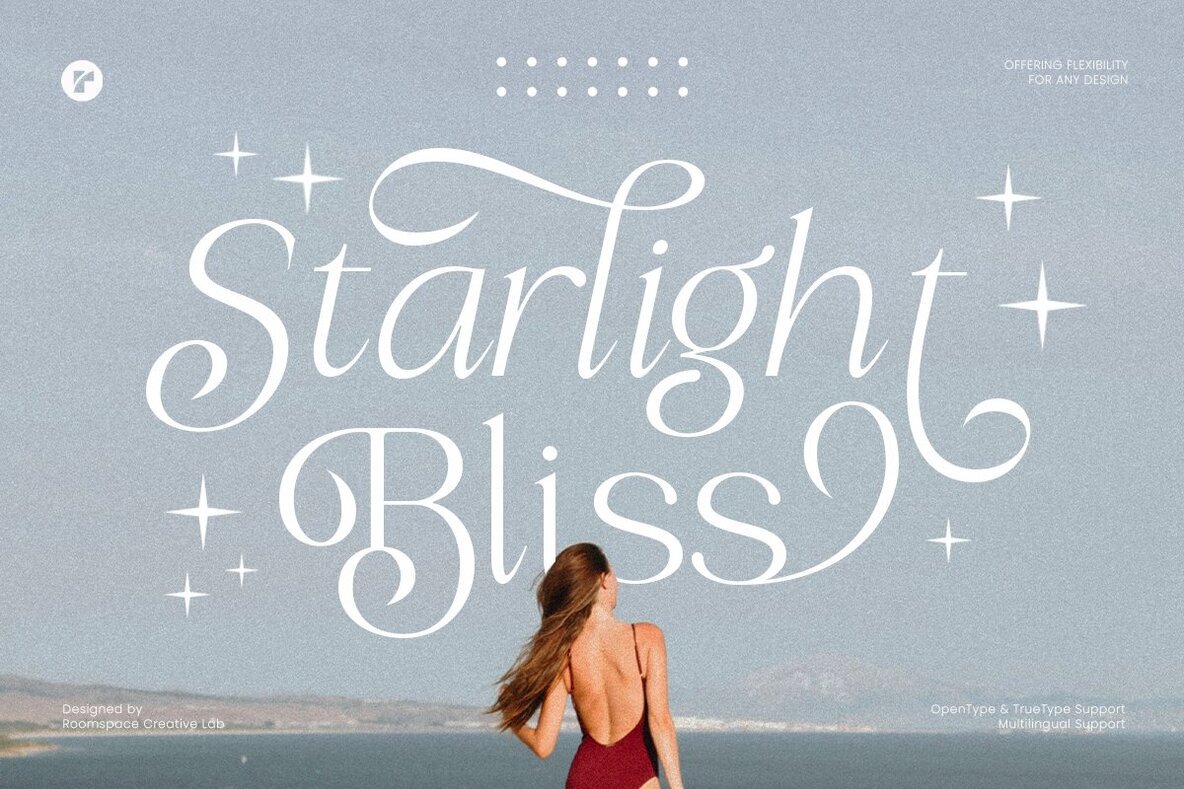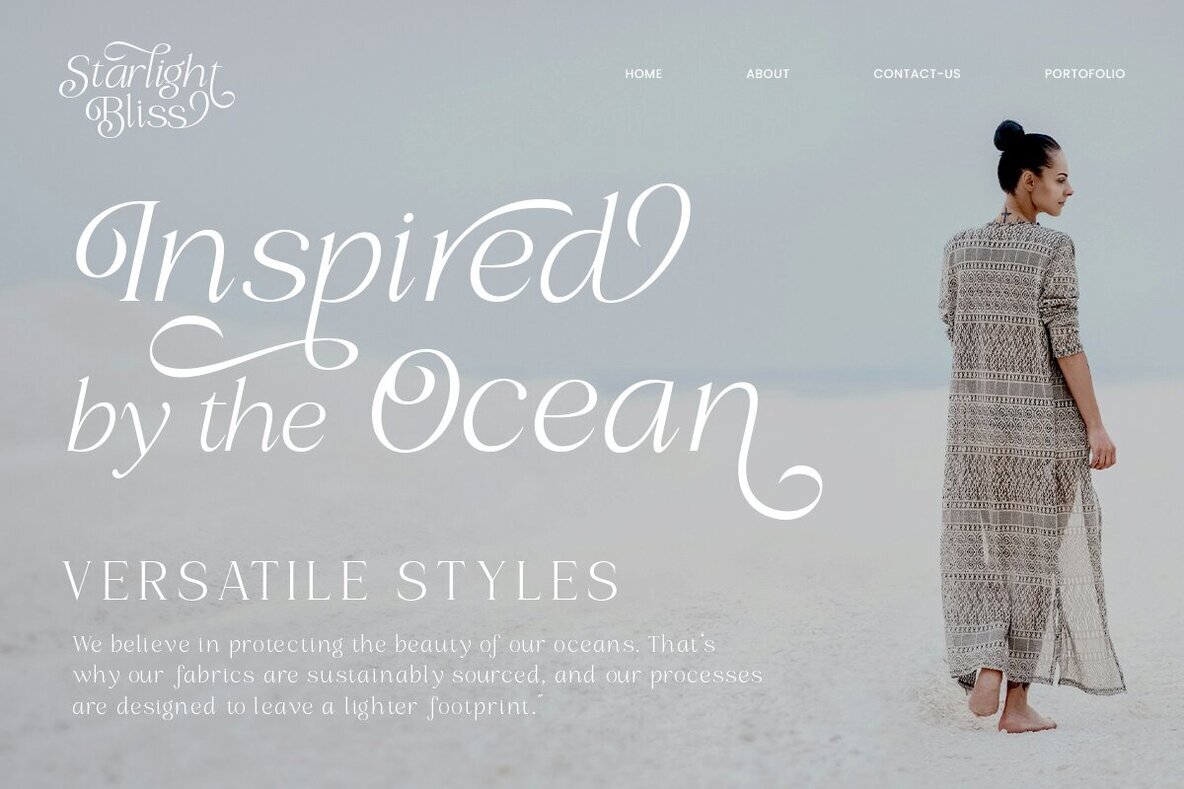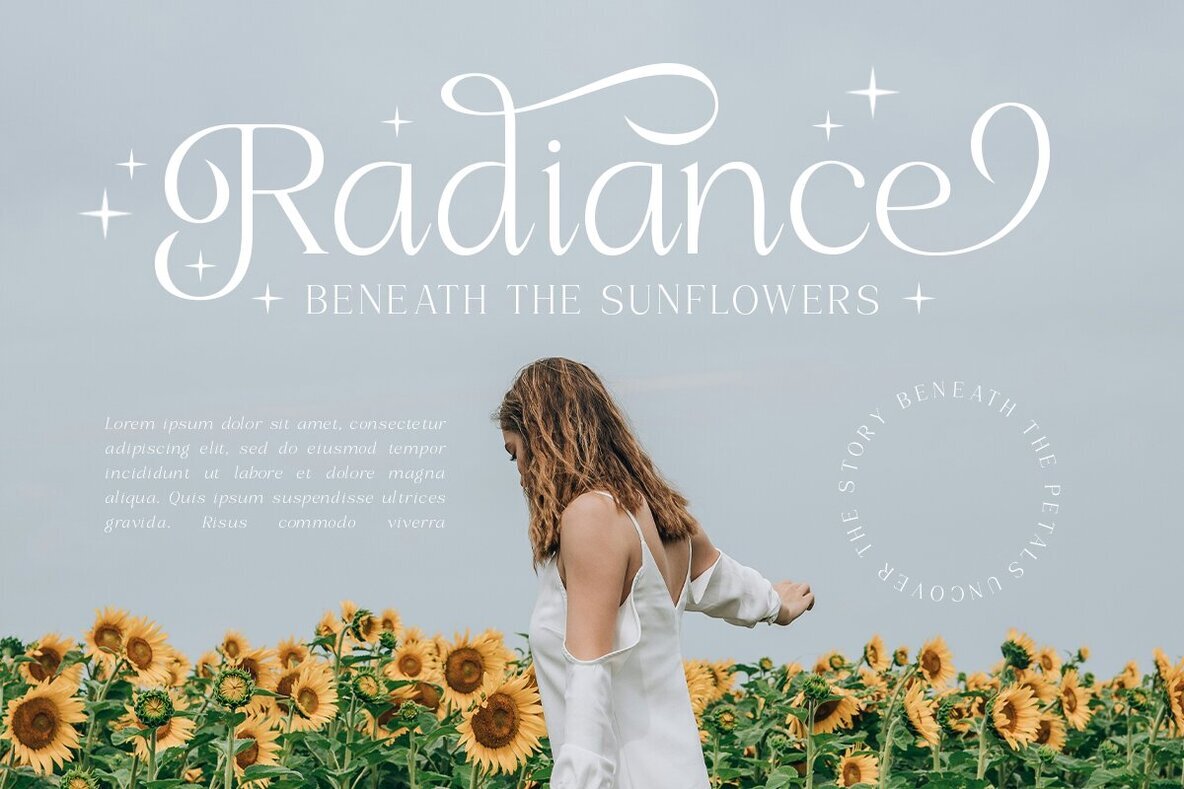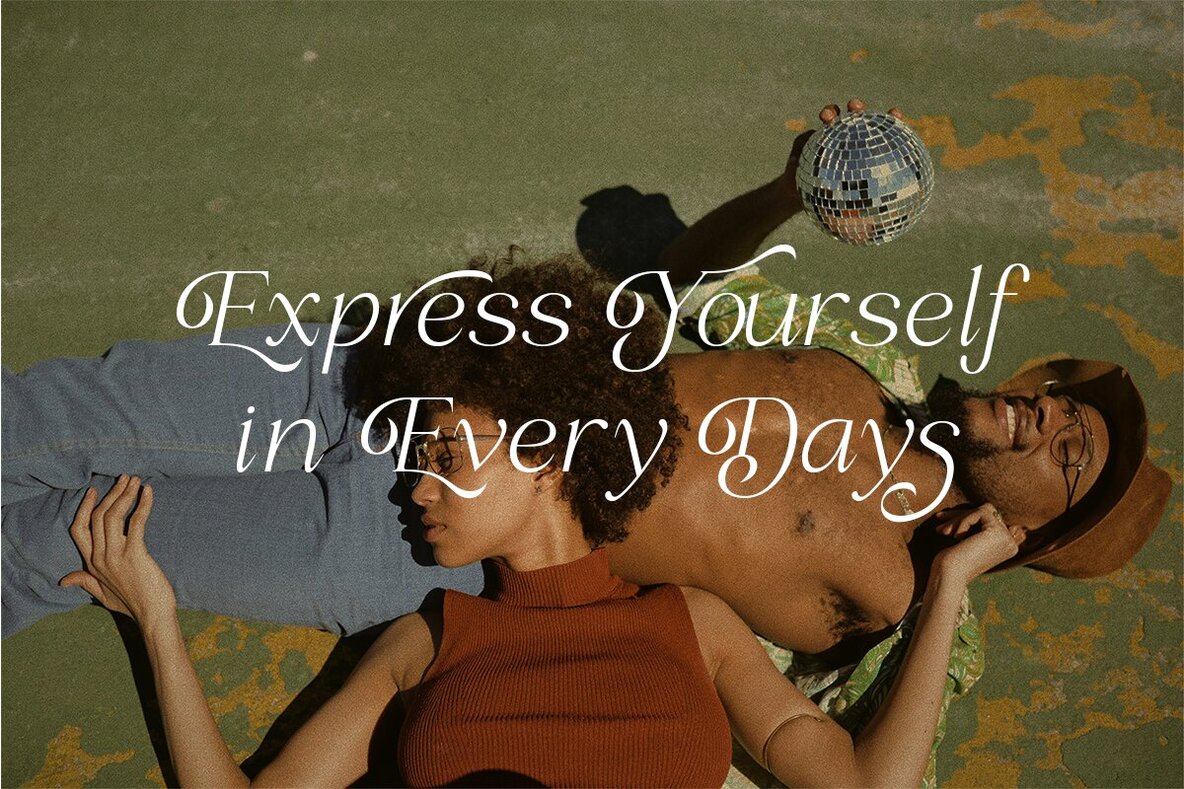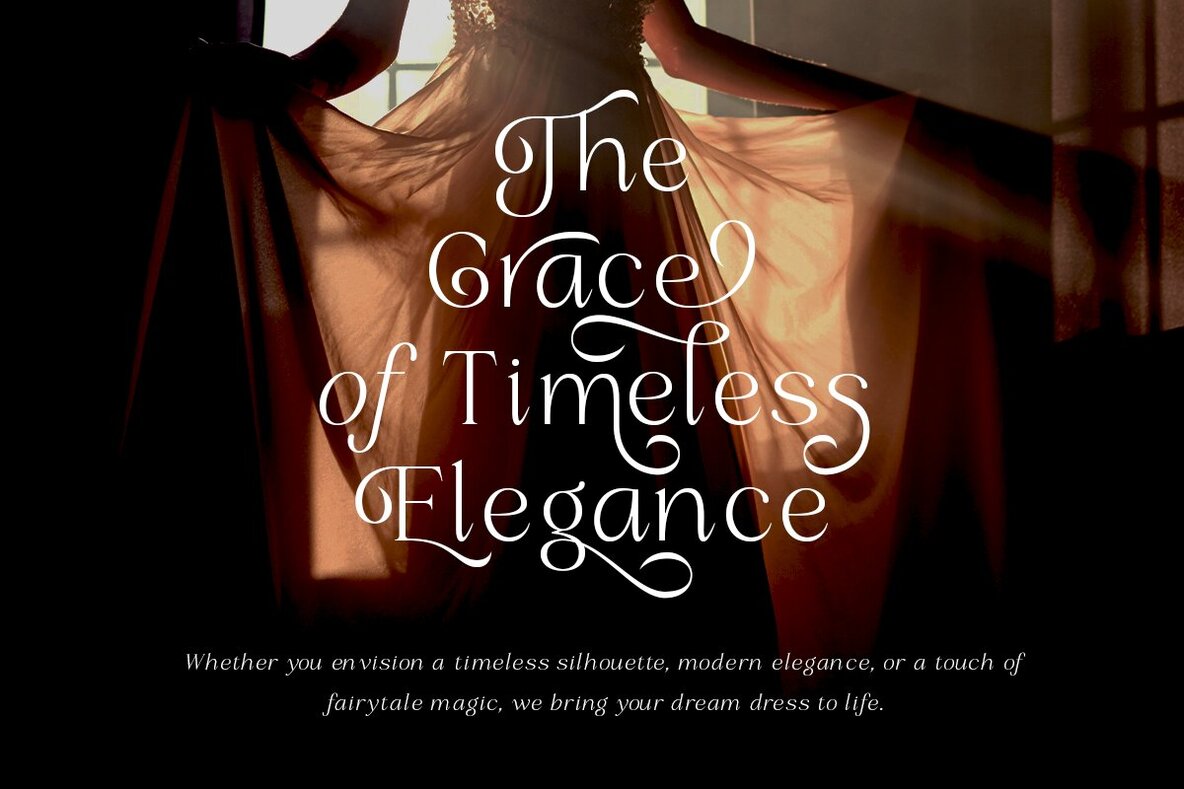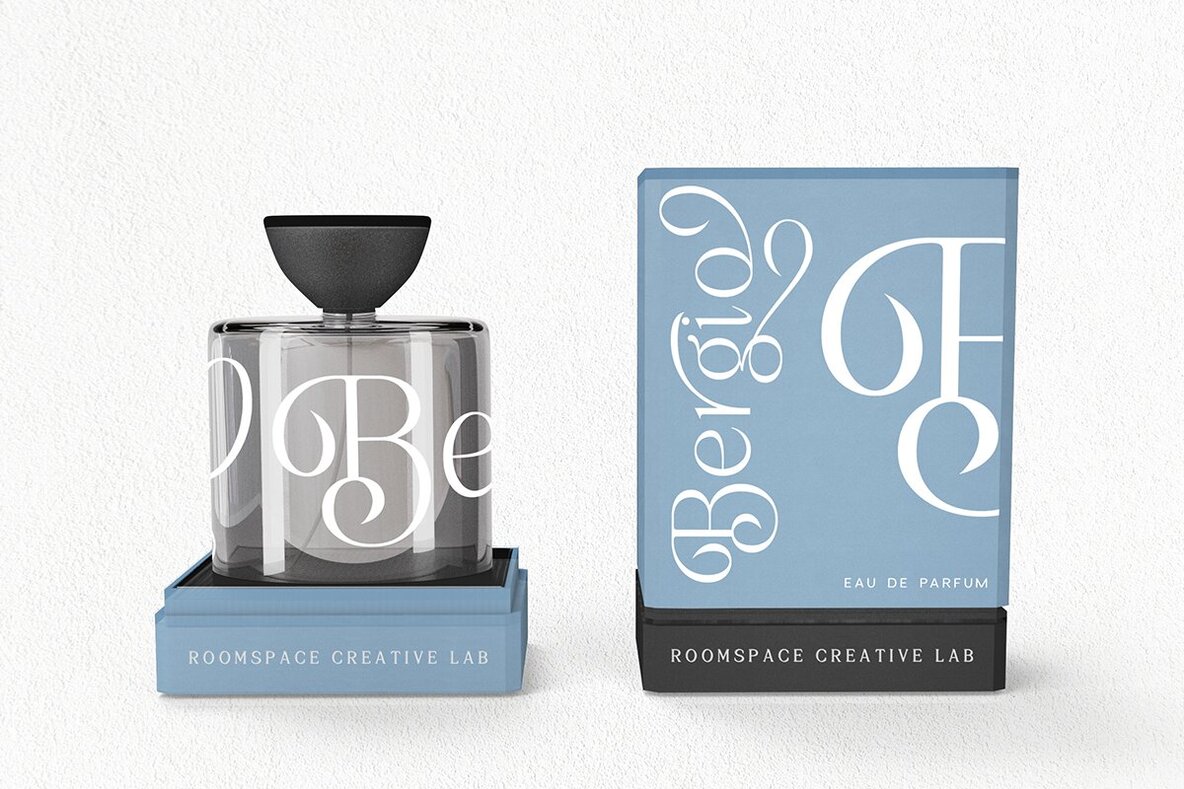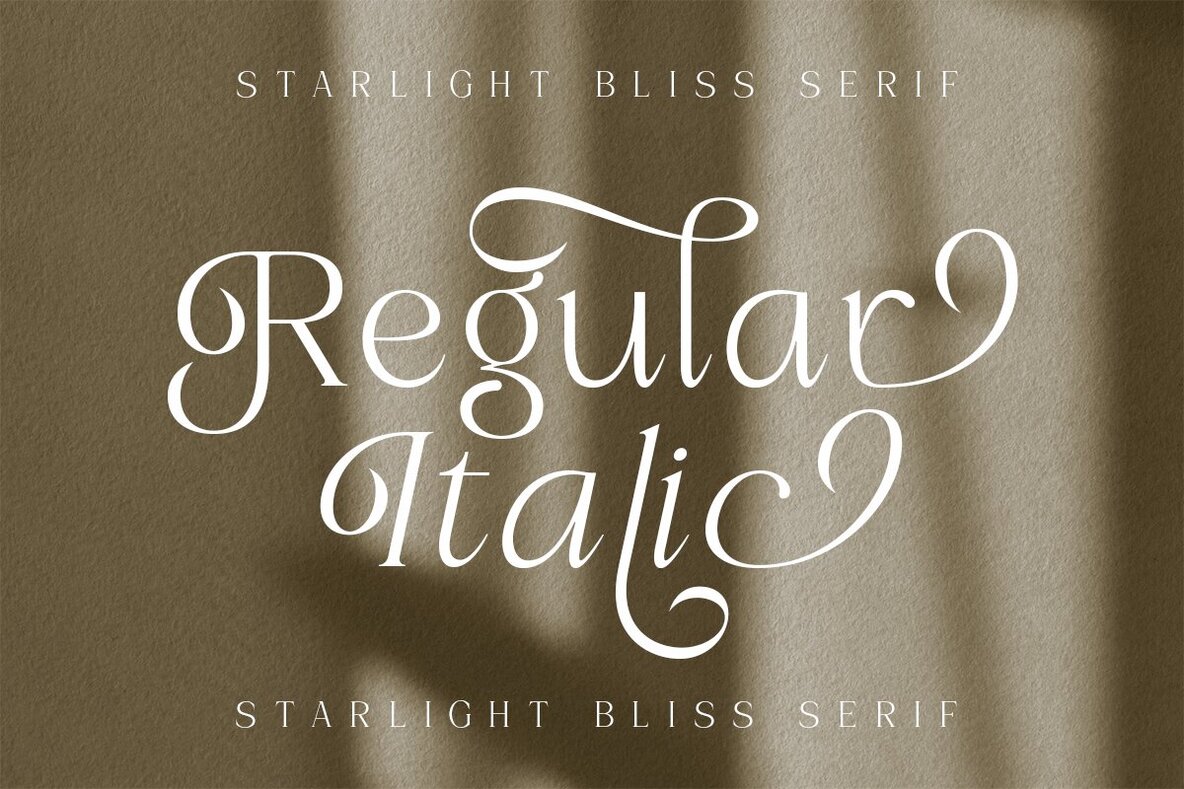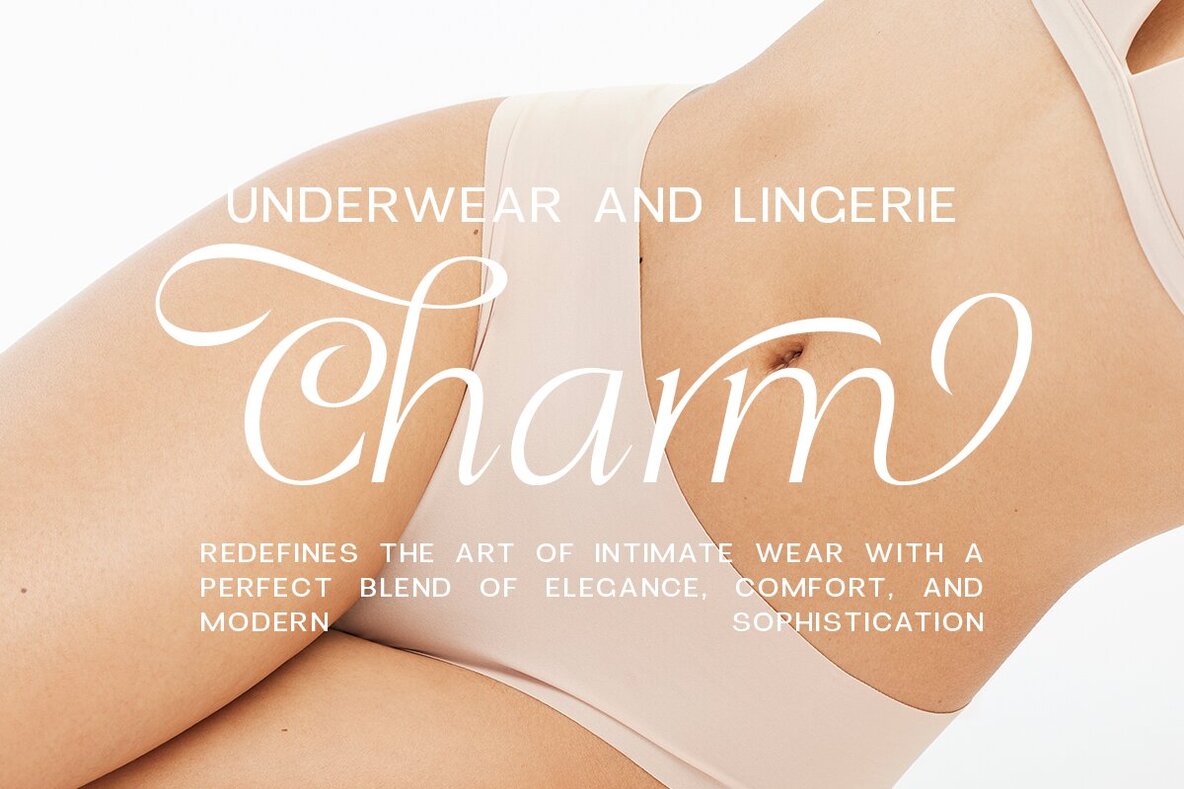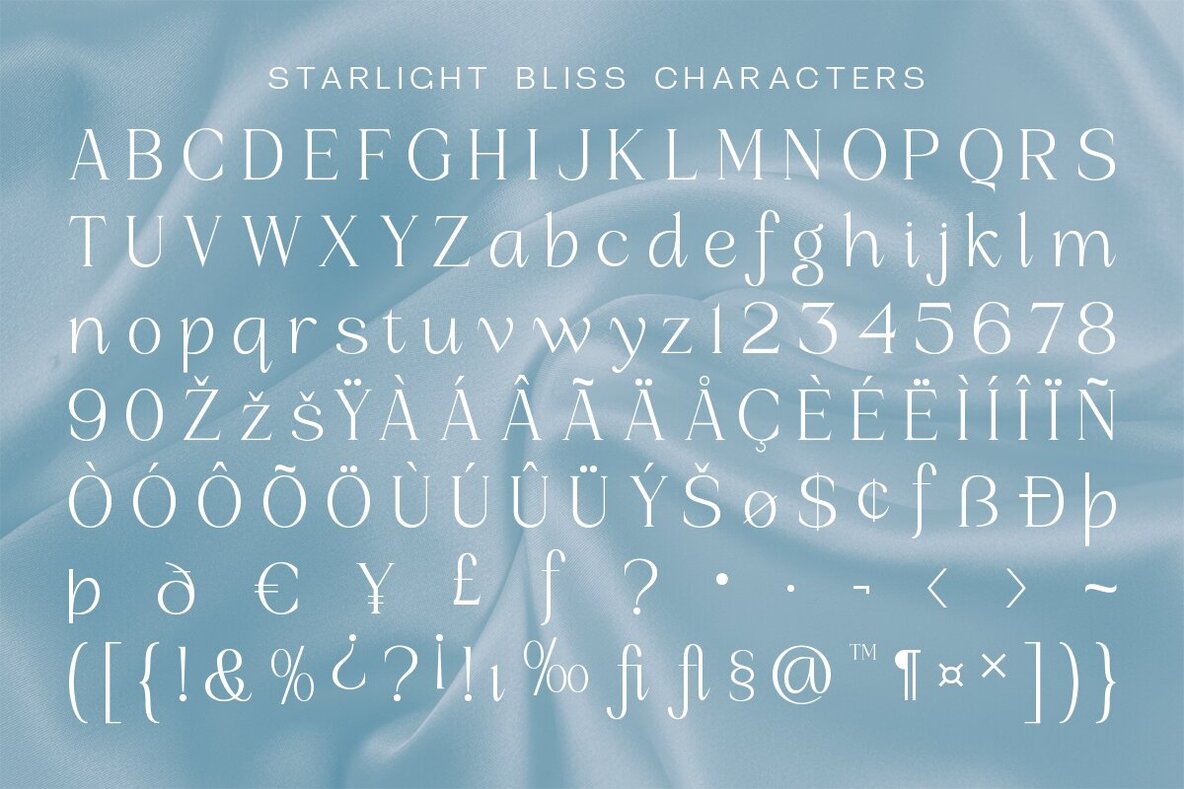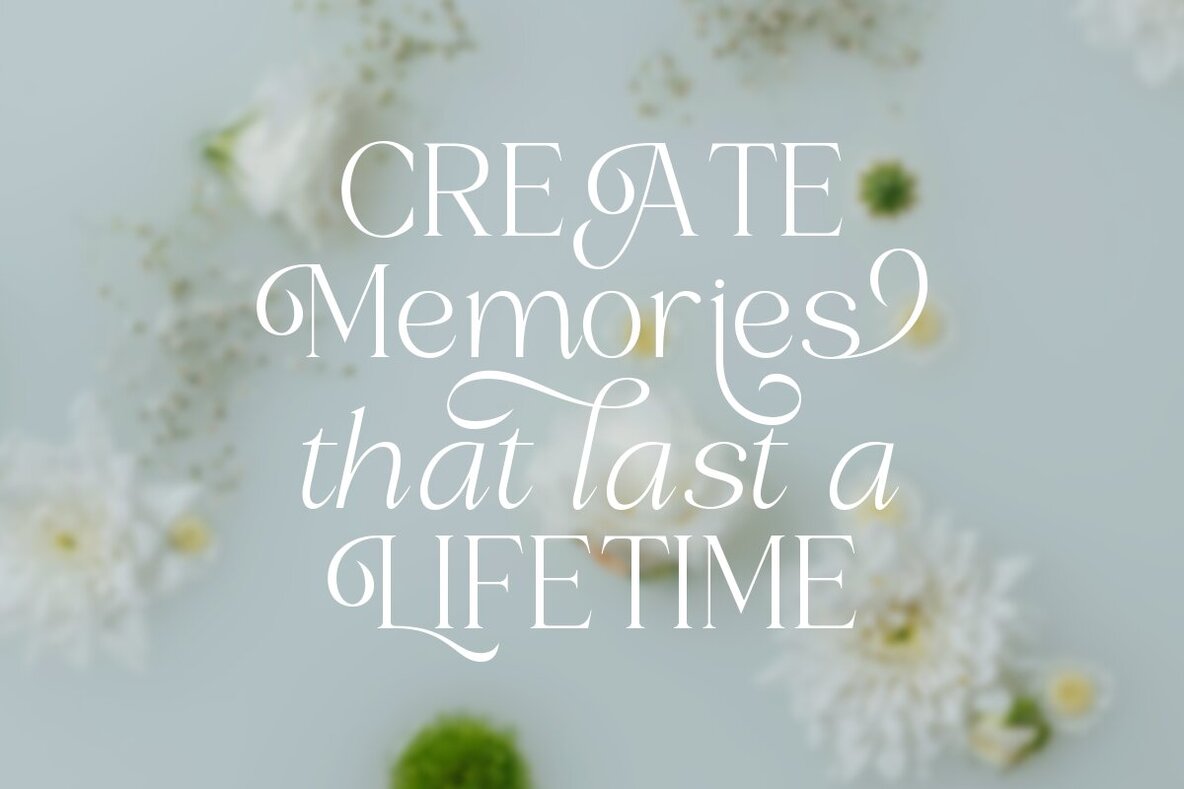
Starlight Bliss Font
Discover the refined elegance of Starlight Bliss, a modern serif font crafted to enhance your creative projects. Its graceful swashes, elegant alternate characters, and sophisticated design make it a perfect choice for logos, branding, invitations, or editorial layouts. Carefully balanced, this typeface seamlessly pairs with other fonts, providing endless creative options while maintaining a luxurious, professional aesthetic. Whether you're creating wedding stationery or a striking brand identity, Starlight Bliss adds a distinctive touch of beauty and exclusivity to each piece.Starlight Bliss: Timeless Modern Serif